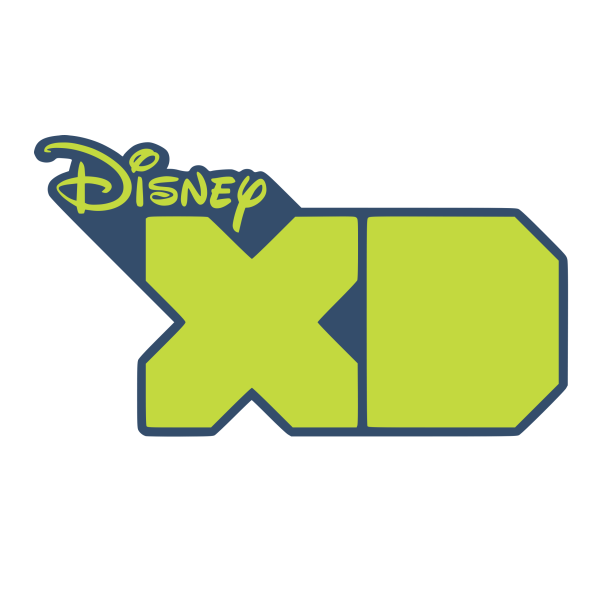
Disney XD Font
EntertainmentDisney XD is a cable and satellite television channel aimed at children, primarily boys ages 6 to 14, and their families. It features animated and live-action shows including Star Wars, Marvel, Phineas, and Ferb.
The "XD" part of the logo resembles Exablock, a highly modular and geometric display typeface built on a 6x6 grid. It comes in two variations: Exablock square and Exablock rounded. You can find the Disney font here.